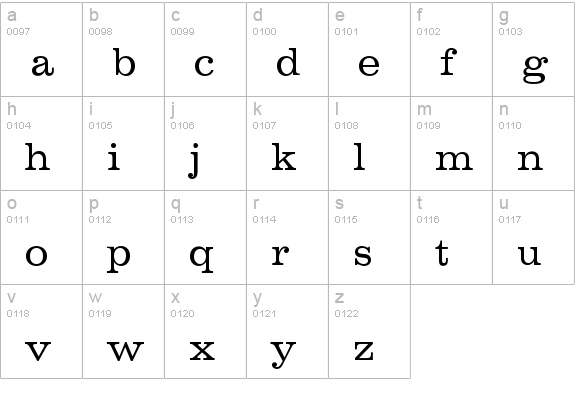
VoltaEF-Regular Font Details
VoltaEF-Regular is the standard, neutral variant in the VoltaEF typeface family \xE2\x80\x94 well suited to general body text, paragraphs, and standard typographic work.
VoltaEF-Regular is a stunning typeface that combines elegance and versatility. Its sophisticated design features clean lines and balanced proportions, making it perfect for a wide range of design projects. Whether you're creating a modern logo, a stylish website, or a professional print piece, this font will effortlessly elevate your work to new heights. With its sleek and contemporary appearance, VoltaEF-Regular is sure to capture attention and leave a lasting impression. Its legibility ensures that your message will be conveyed with clarity and precision, while its timeless appeal guarantees that it will remain a classic choice for years to come. One of the best things about VoltaEF-Regular is that it is freely available to download at FontsMarket.com. This means that you can add this remarkable font to your collection without spending a dime. Its accessibility allows designers of all levels to access professional-quality resources, empowering them to create outstanding designs without breaking the bank. Don't miss out on the opportunity to enhance your projects with the elegance and versatility of VoltaEF-Regular. Download it for free at FontsMarket.com and unlock a world of creative possibilities.